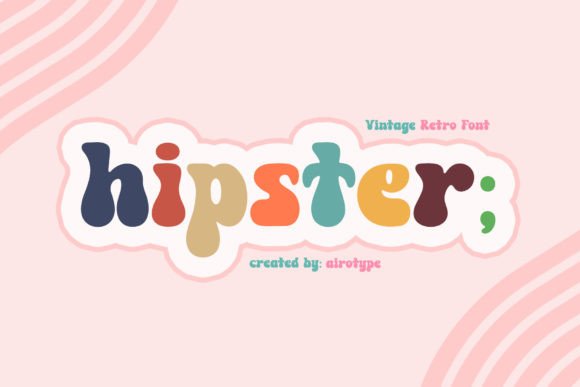
Introducing Hipster Font, the ultimate font style for all your Cricut needs. Created by airotype, this font is not just your ordinary display font - it's a cute, fun, and playful retro gem that will transport you back to the good old days. With its vintage look and irresistible charm, Hipster Font is the perfect addition to any project that requires a touch of nostalgia.
Whether you're designing a logo, crafting unique pieces, or creating stunning wedding invitations, Hipster Font will effortlessly elevate your creations. Its timeless appeal and vintage vibes will make your designs stand out from the crowd, leaving a lasting impression on anyone who lays eyes on them.
But Hipster Font isn't limited to just logos and invitations. It's a versatile font that can be used for a variety of purposes. Add some character to your branding materials, adorn your stickers with a touch of retro flair, or create eye-catching sublimation designs that will captivate your audience. The possibilities are endless!
Infuse your quotes with a dash of whimsy and watch them come to life with the Hipster Font. Its unique style will add a playful twist to any text, making your words even more impactful and memorable. Whether you're sharing inspirational quotes on social media or printing them on merchandise, Hipster Font will ensure they leave a lasting impression.